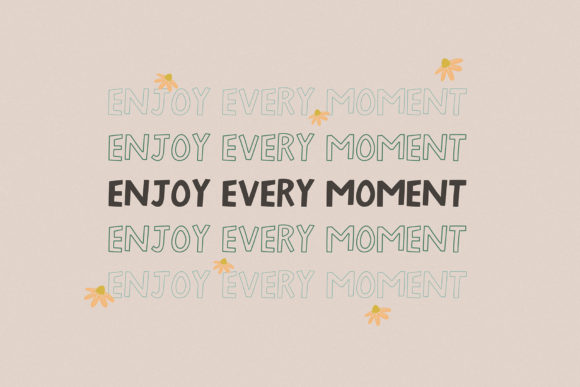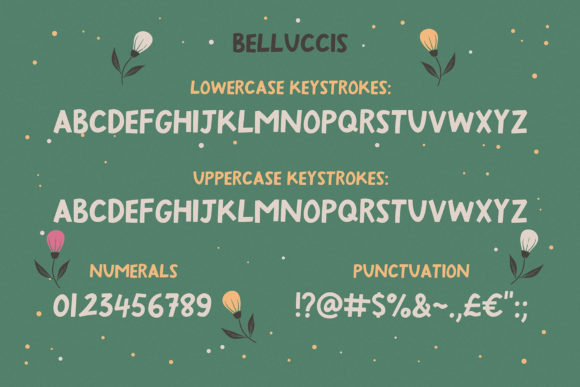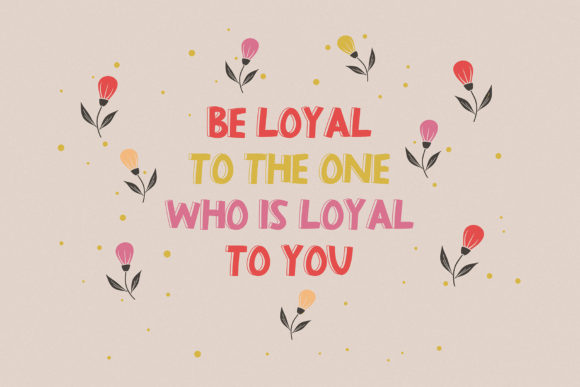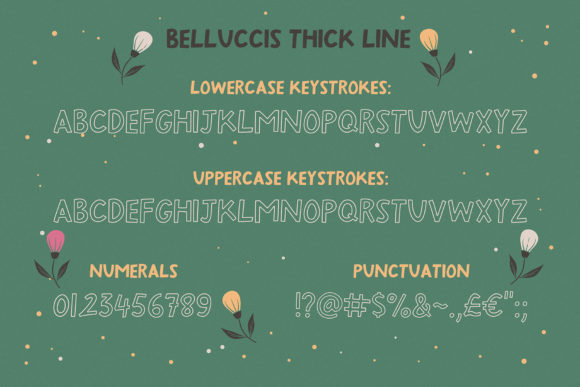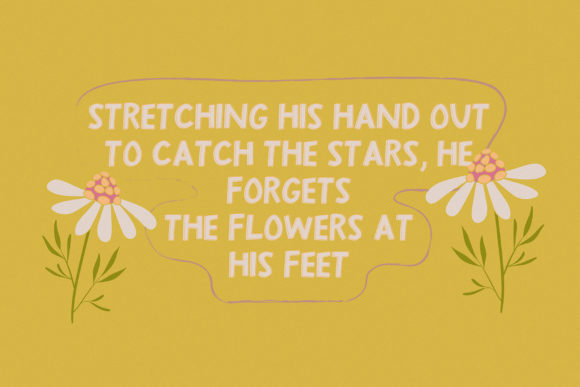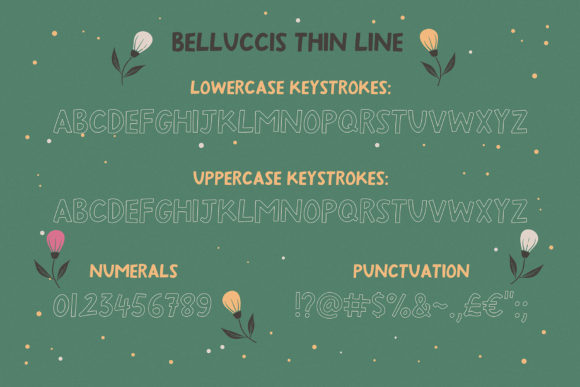
The Ultimate Guide to Belluccis Font: Elevate Your Designs with Modern Typography
I’ll never forget the time I was working on a project for a children’s book, and I was struggling to find the perfect font. The client wanted something bright, modern, and playful, but I was coming up blank. That’s when I stumbled upon Belluccis Font, and it changed the game. In this article, I’ll share my experience with Belluccis, its features, and how to make the most of it in your designs.
What Makes Belluccis Font So Special?
Belluccis is the perfect sans serif for experimenting with bright and modern typographic designs in any modern design. This modern SVG font family is great for outstanding quotes, playful branding, children’s books, fancy greeting cards, and more!
An Honest Review of Belluccis Font
- ✅ Extremely versatile and adaptable to various design styles
- ✅ Wide range of OpenType features, glyphs, and stylistic alternates
- ✅ Perfect for digital and print designs, including children’s books and greeting cards
- ✅ Easy to read and understand, even at smaller font sizes
- ⚠️ Some users might find the font a bit too bold for certain designs
- ⚠️ Limited availability of certain special characters
The Backstory Behind Belluccis Font
Belluccis Font was designed with the modern designer in mind. Its creator aimed to craft a font that would be both versatile and stylish, perfect for a wide range of design applications. While the exact story behind Belluccis might be unknown, its design is undoubtedly inspired by the latest trends in typography and modern design.
Q: Is Belluccis Font suitable for body text?
A: While Belluccis is a beautiful font, it might be a bit too bold for body text. However, it’s perfect for headlines, titles, and quotes.